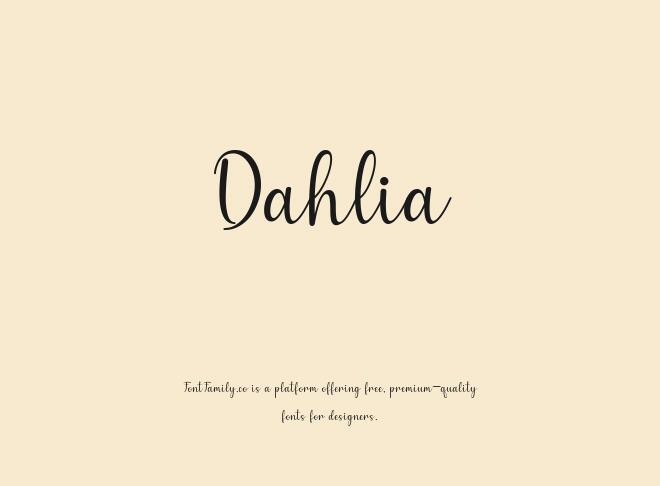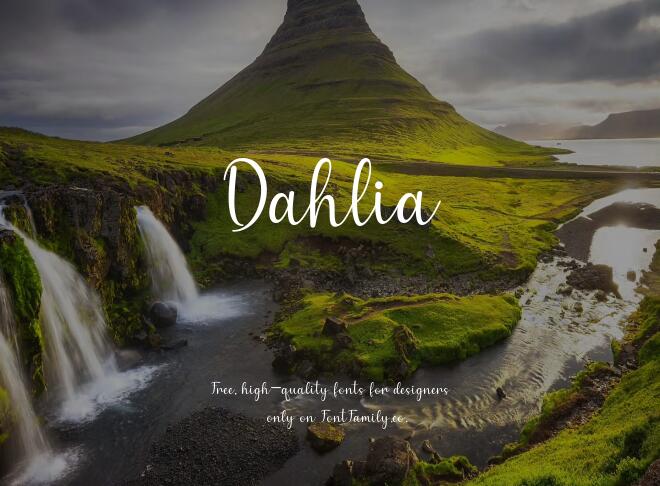
Dahlia Font
Dahlia Font, created by Creative Tacos, is a beautiful handwritten script typeface perfect for any elegant and decorative design project. With its unique and organic letterforms, Dahlia Font delivers a level of elegance and creativity that is unparalleled. Its flowing, gentle curves make it an excellent choice for wedding invitations, greeting cards, or any design project that requires a touch of sophistication. Dahlia Font's versatile style can be compared to popular fonts such as 'Brush Script', but with a more refined and unique character. Free for personal use, it's a must-have in any designer's toolkit, especially those who aim to create a balance between elegance and creativity in their designs.